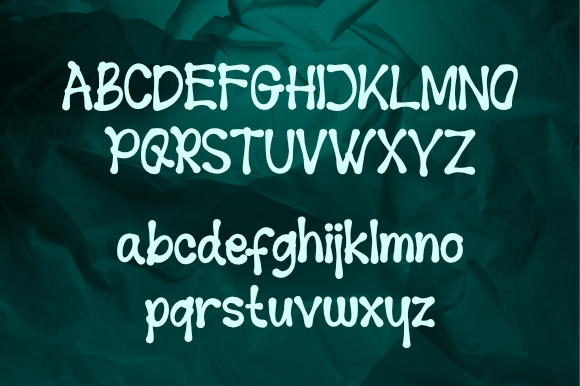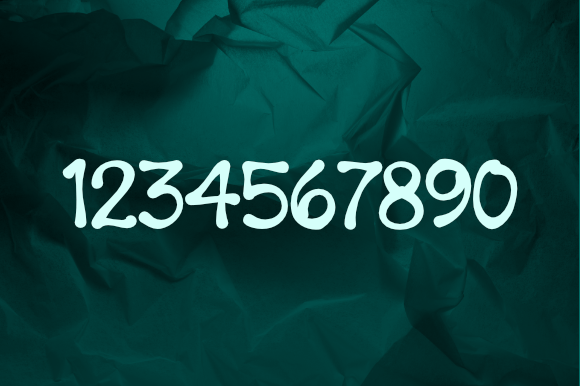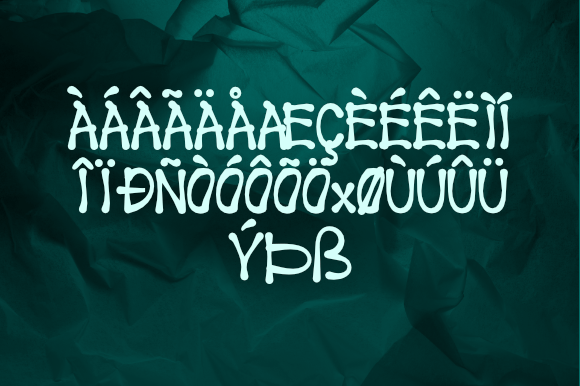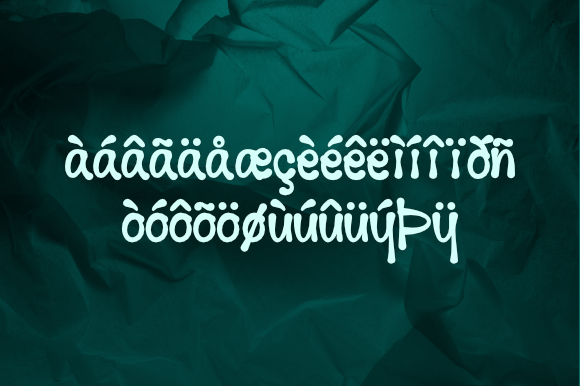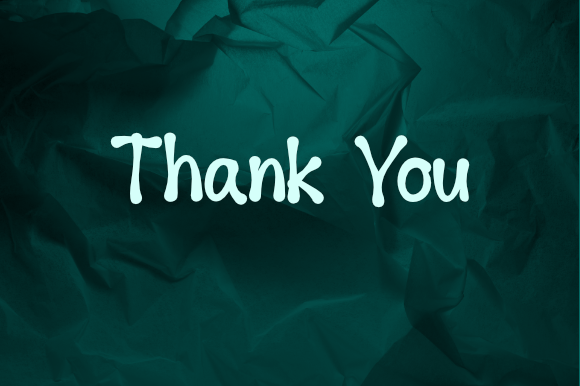
Introduction to Pedrozy Font
Have you ever stared at a blank canvas, searching for the perfect spark to ignite your next creative project? For designers, this moment is all too familiar – a chance to bring a vision to life, to craft something truly remarkable. It’s in these moments that the right design resource can make all the difference. Enter Pedrozy Font, a game-changing handwritten font that will elevate your work to new heights.
With its dynamic, casual style and bold aesthetics, Pedrozy Font is the perfect tool to transform the mundane into extraordinary. Whether you’re creating logos, social media posts, film titles, or book covers, this high-quality font is sure to make your work stand out. And the best part? It’s available for free download, complete with a transparent background, making it a versatile addition to any design project.
As a valuable resource for designers, Pedrozy Font is a must-have for anyone looking to add a unique flair to their work. Its exceptional quality and flexibility make it an ideal choice for a wide range of creative projects, from web designs to print materials. So why settle for ordinary when you can have extraordinary? Discover the power of Pedrozy Font and unlock your full creative potential.
Key Features of Pedrozy Font
- High-quality design resource with a unique, creative style suitable for various projects.
- Transparent background, allowing for seamless integration into your creative project’s design.
- Designed to be highly legible and visually appealing, making it perfect for headings, titles, and other prominent design elements.
- Part of a larger collection of fonts, offering a wide range of design options for your creative project.
Honest Review: Pedrozy Font
I recently had the chance to work with the Pedrozy Font, and I must say, it’s a unique addition to any design project. As a designer, I’m always on the lookout for high-quality fonts that can elevate a creative project.
- Unique and creative design style
- High-quality typography
- Easy to use in design projects
- Not as versatile as other fonts (limited to specific design scenarios)
- No extensive character set available
Overall, I think the Pedrozy Font is a great design resource for designers who are looking for a unique and high-quality font for their creative project. While it may have some limitations, I believe it’s definitely worth checking out.
Common Use Cases for Pedrozy Font
The Pedrozy Font is a versatile design resource that can be used in a variety of creative projects, including:
- Typography projects